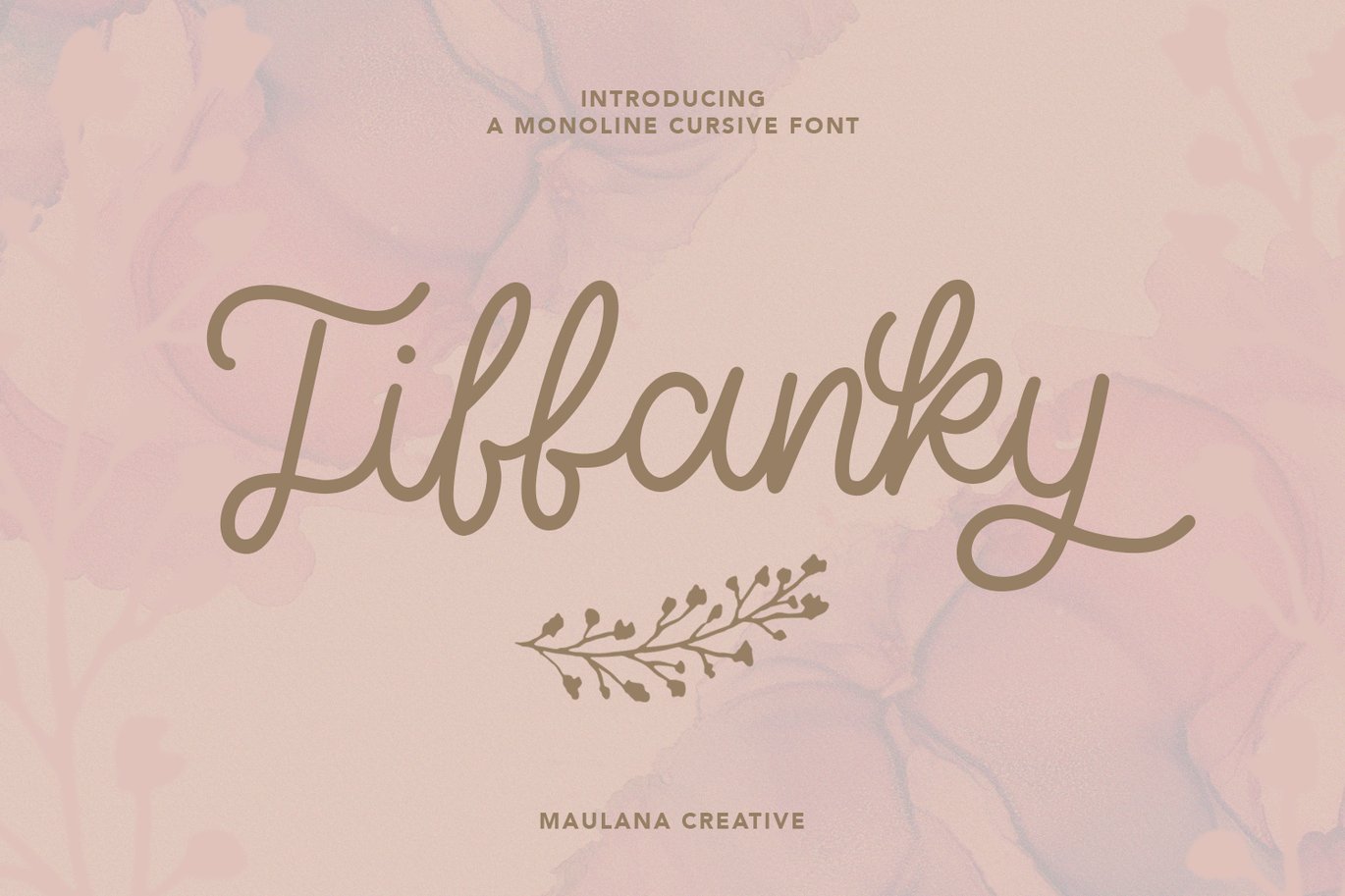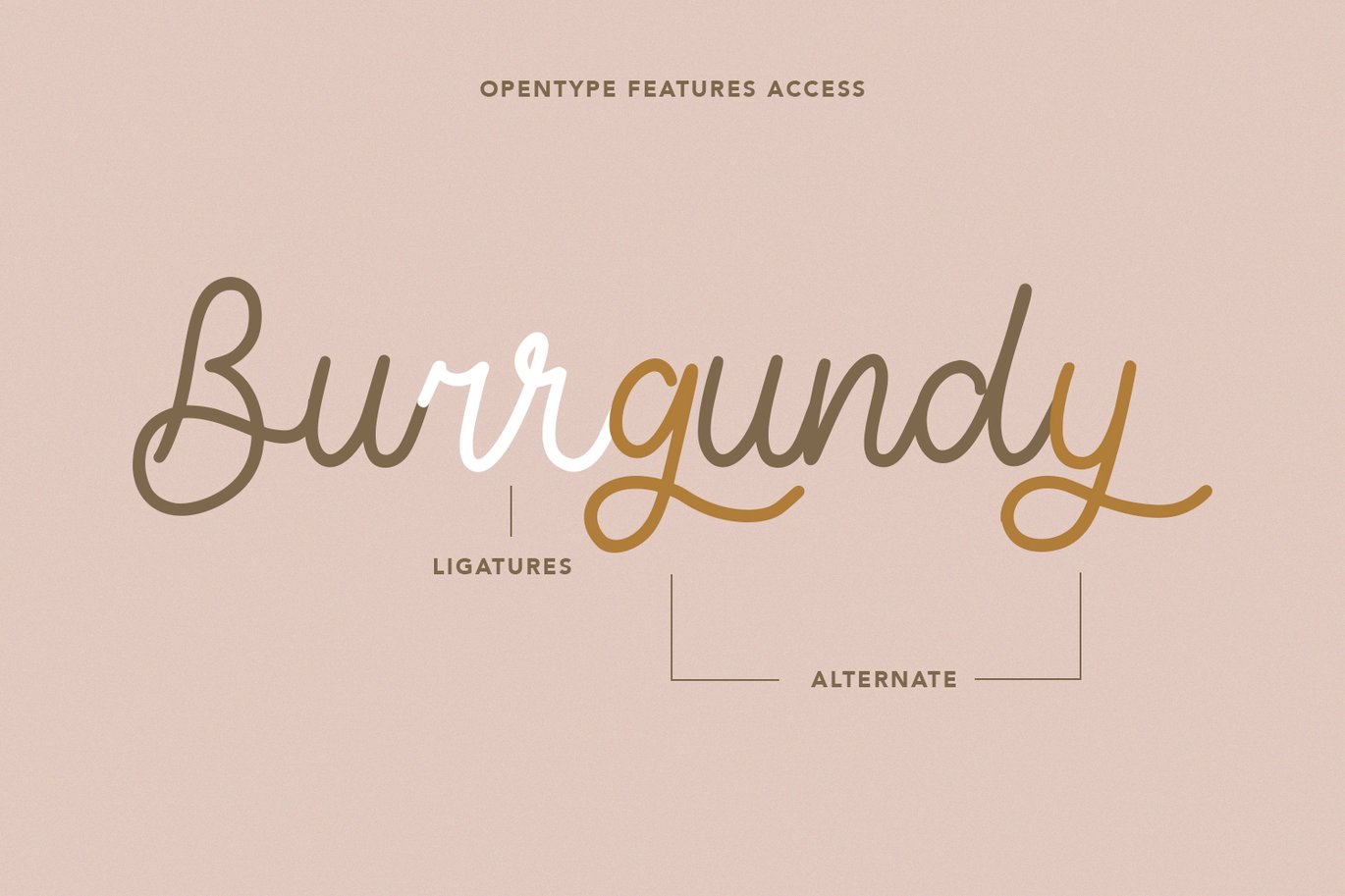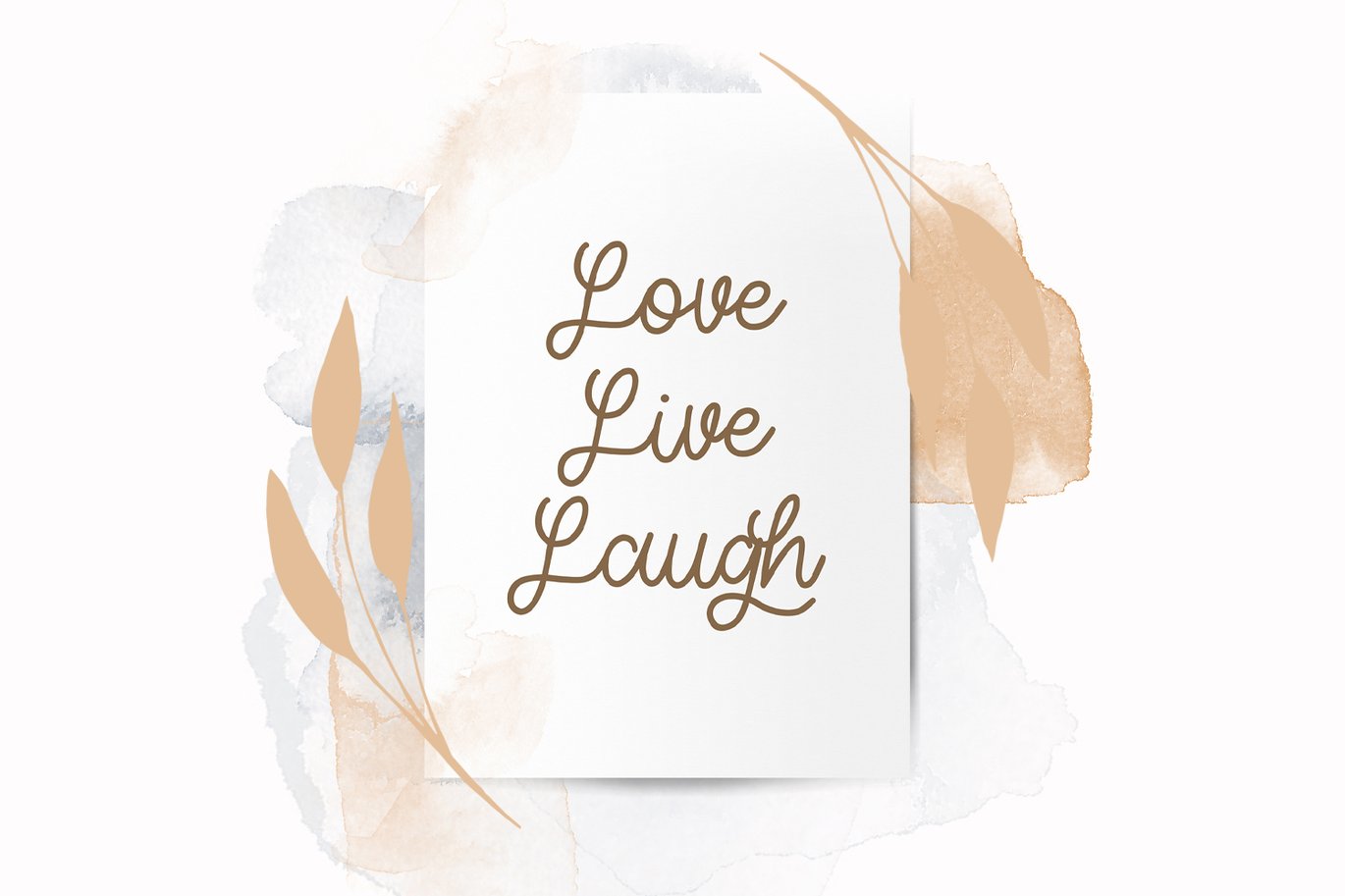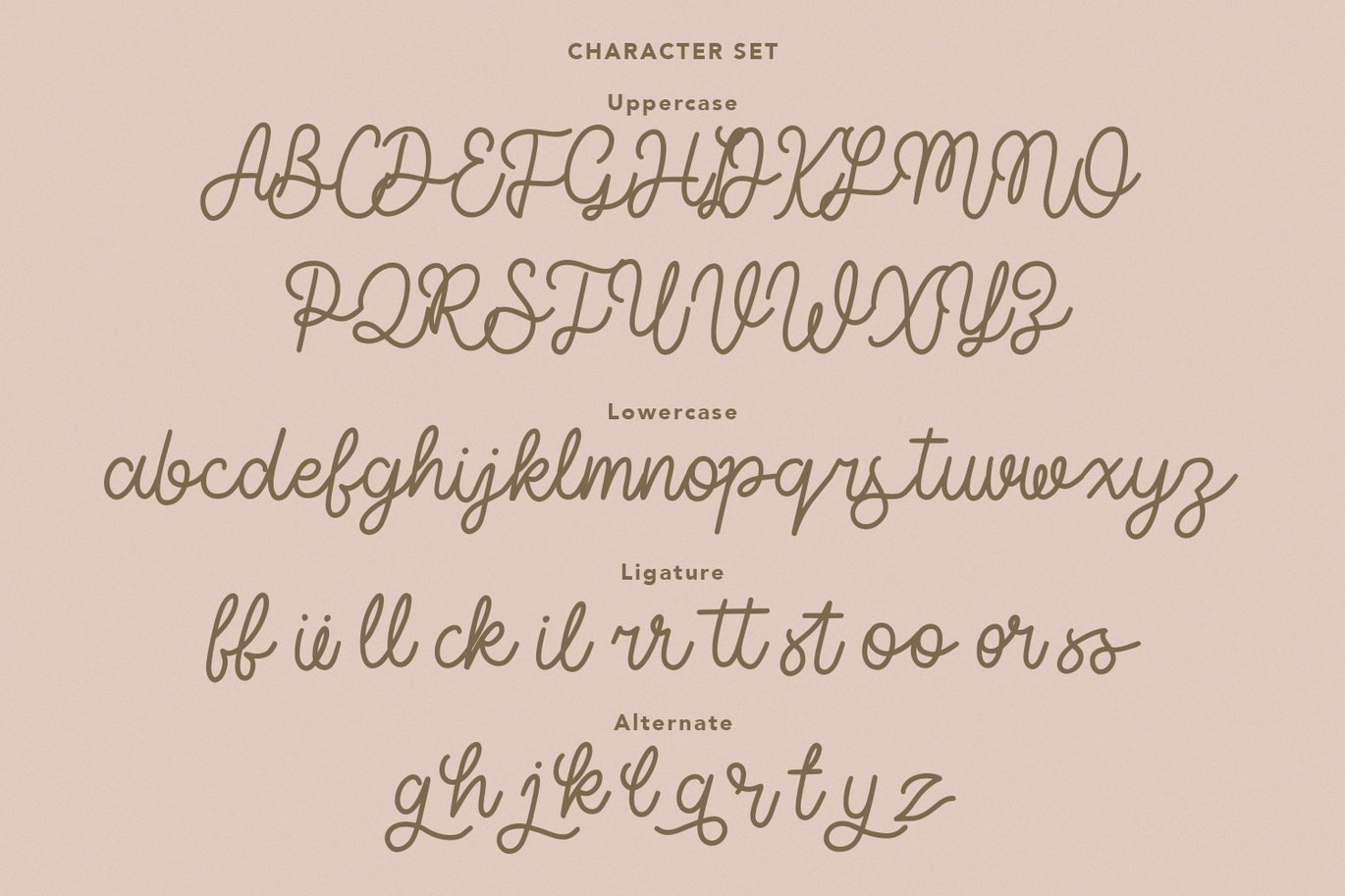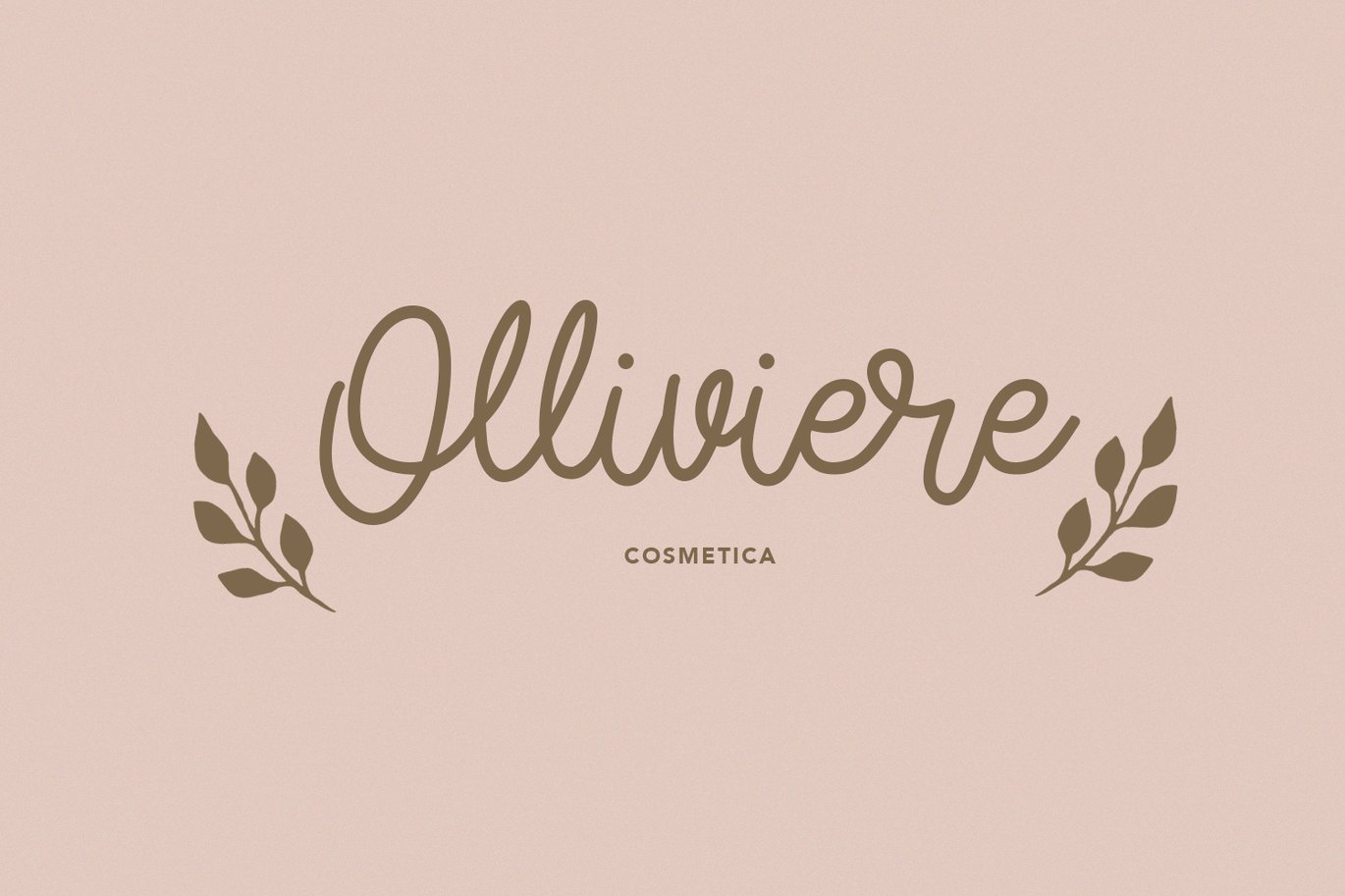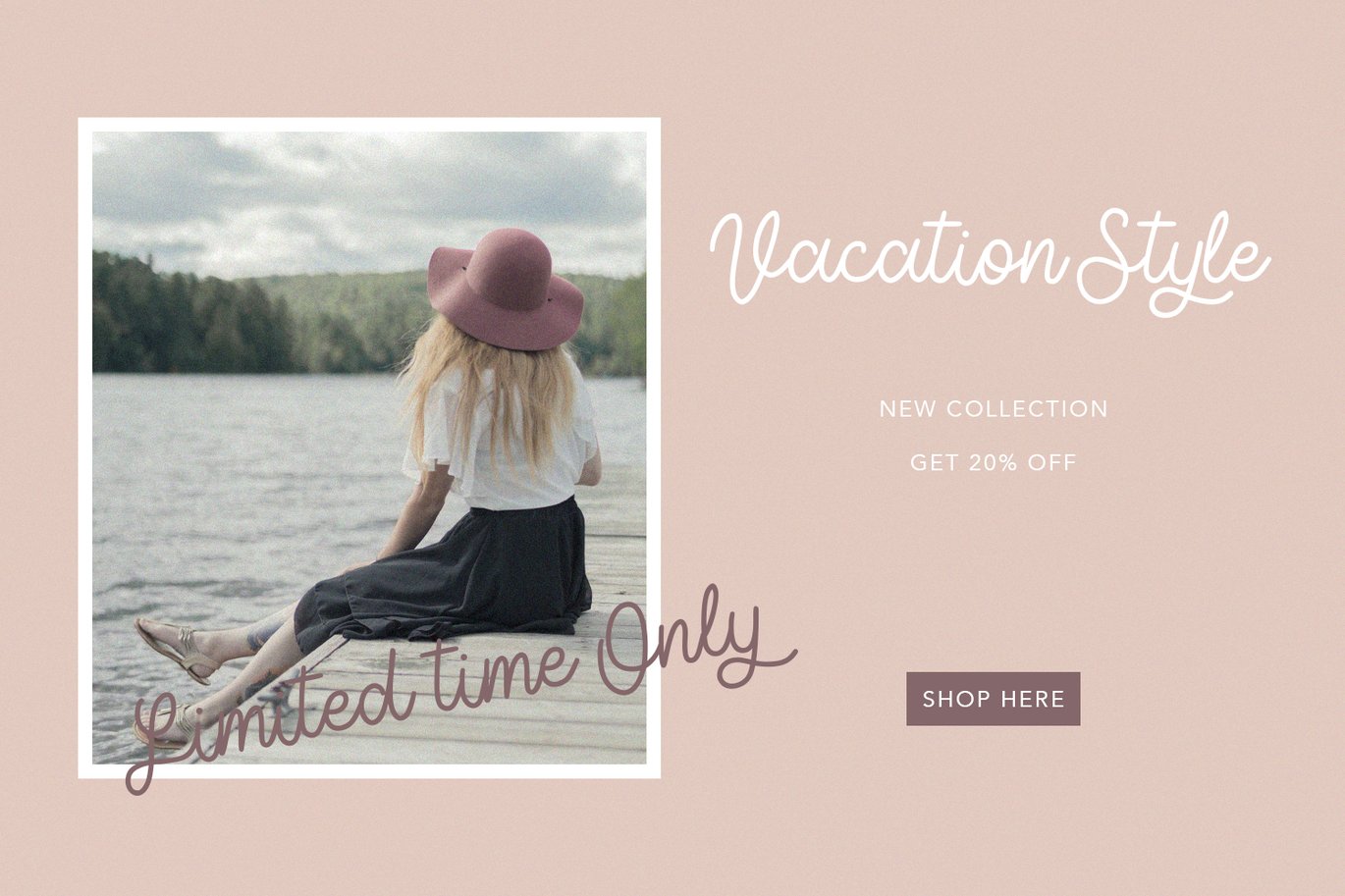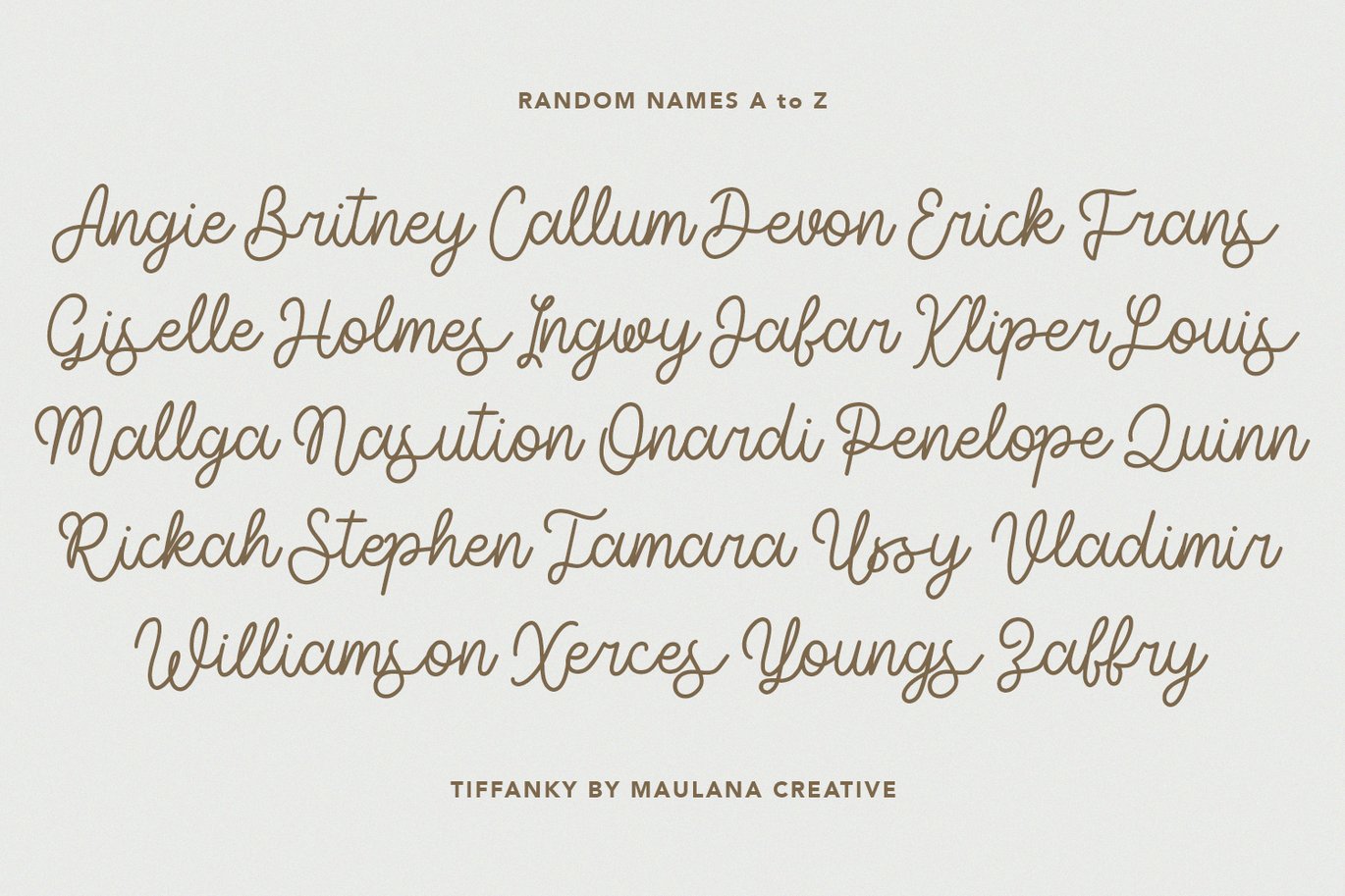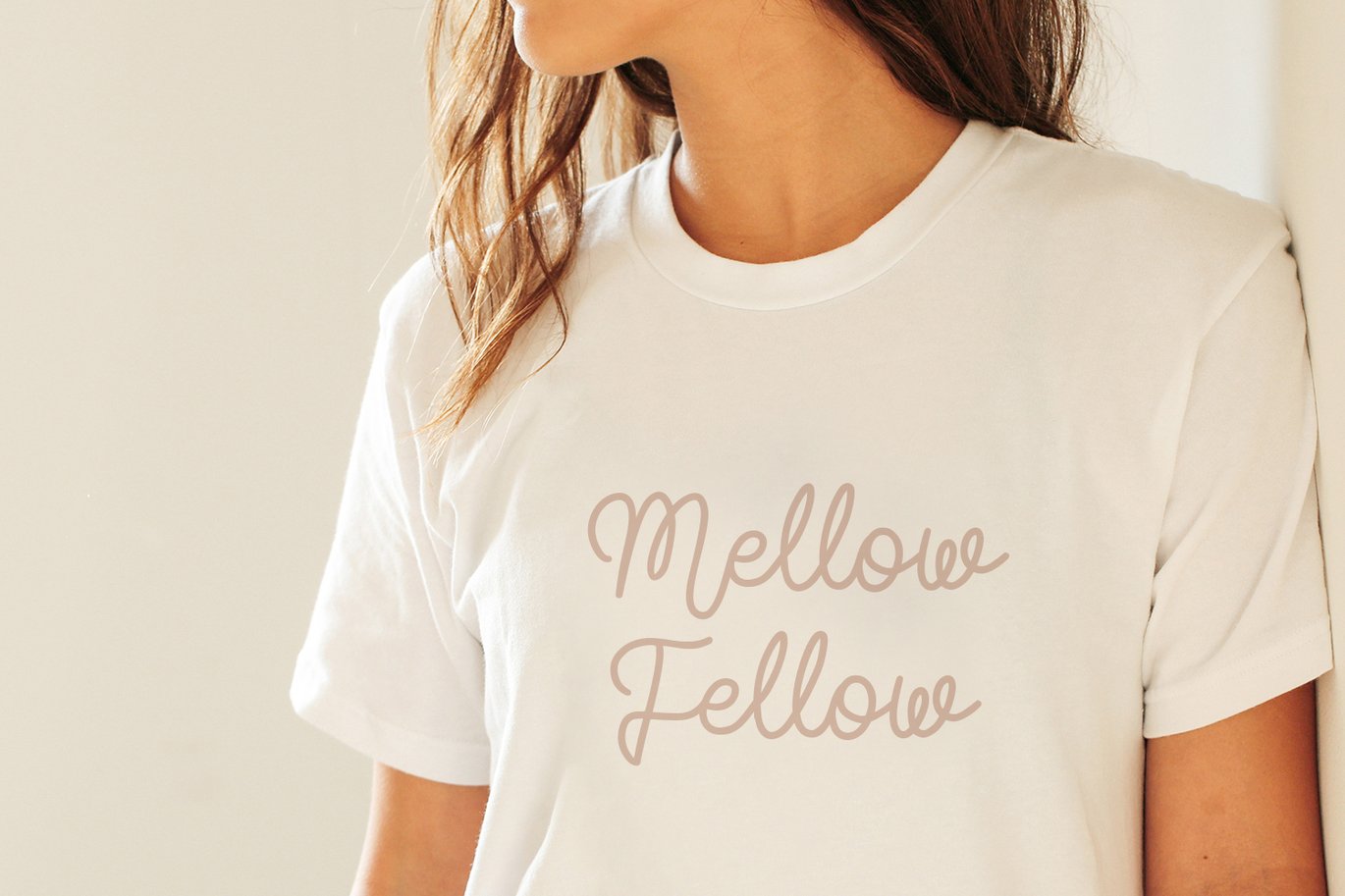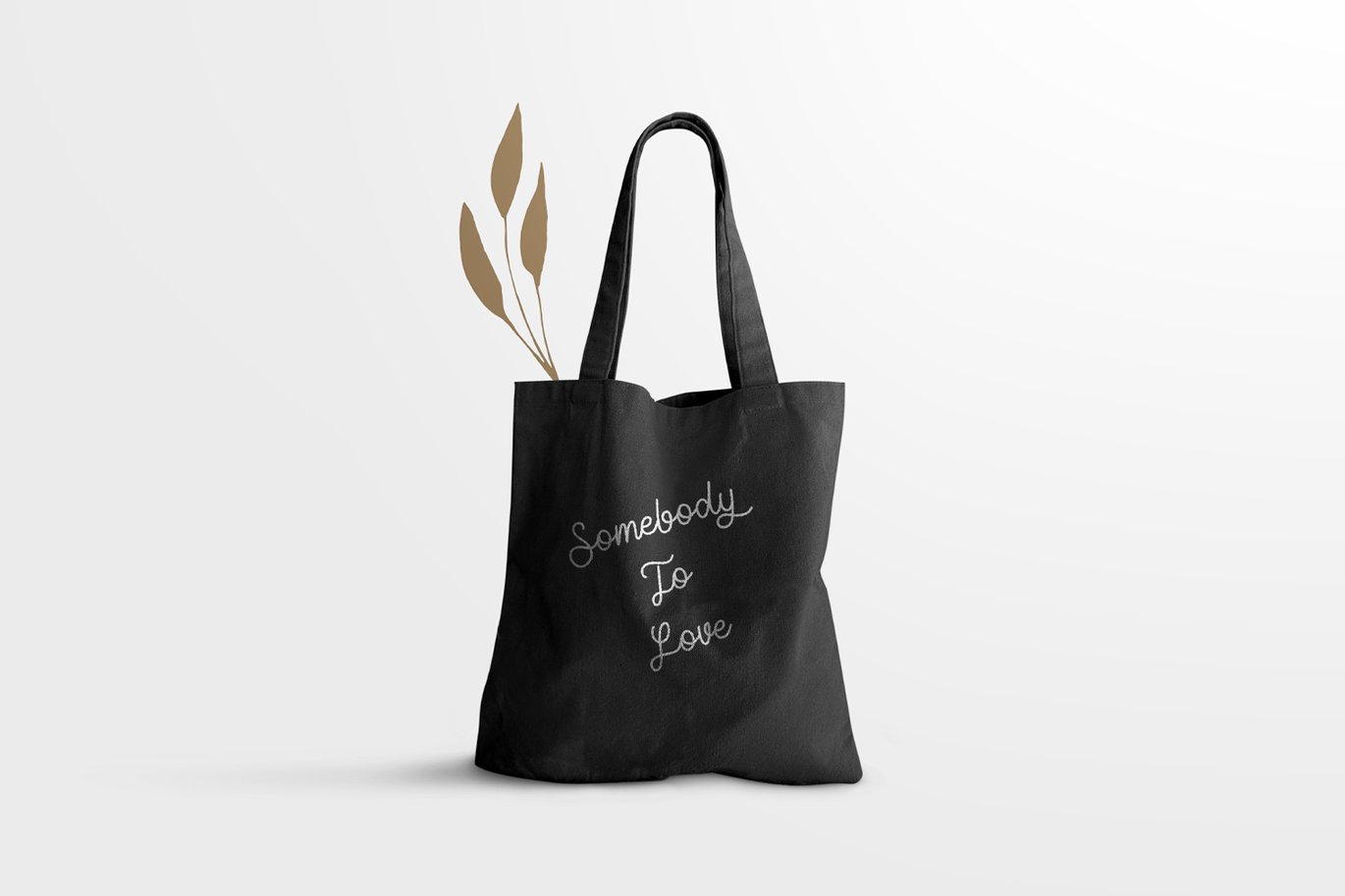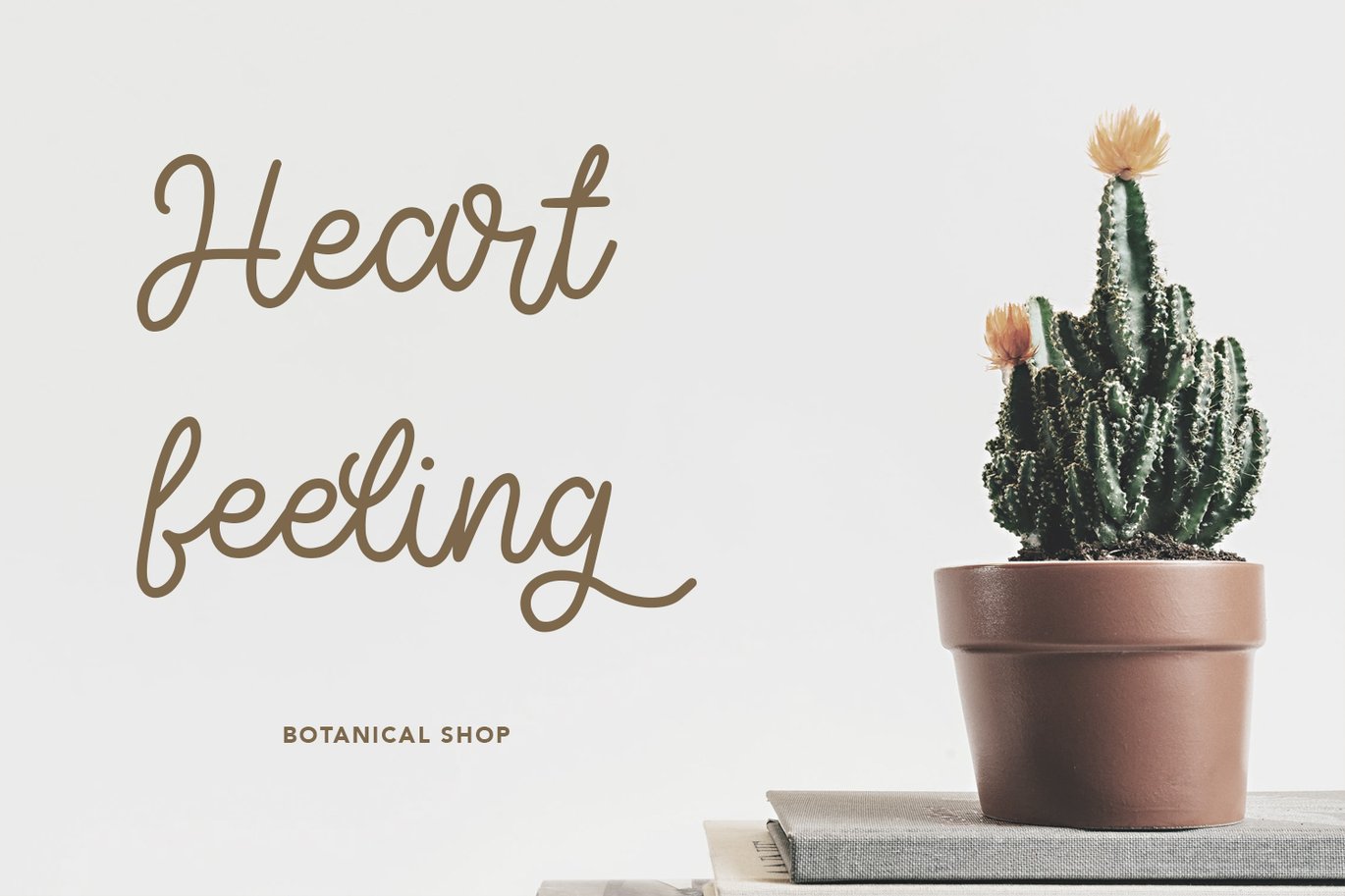
Tiffanky Monoline Cursive Font
Tiffanky is a Classic Cursive monoline font casual and clean stoke font includes alternate lowercase and opentype features Ligatures inspired by the late 80’s sign board. It support multilingual more than 100+ language. This font is suitable for logo design and any awesome project you create. Make stunning work with Tiffanky Monoline font.
Give your designs an authentic handcrafted feel. “Tiffanky Monoline Cursive Font” is perfectly suited to stationery, logos and much more.